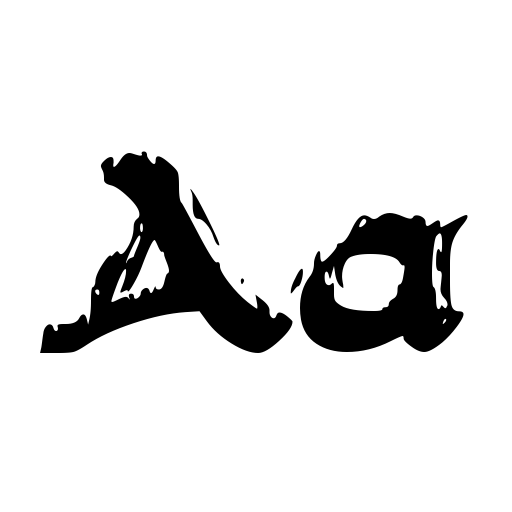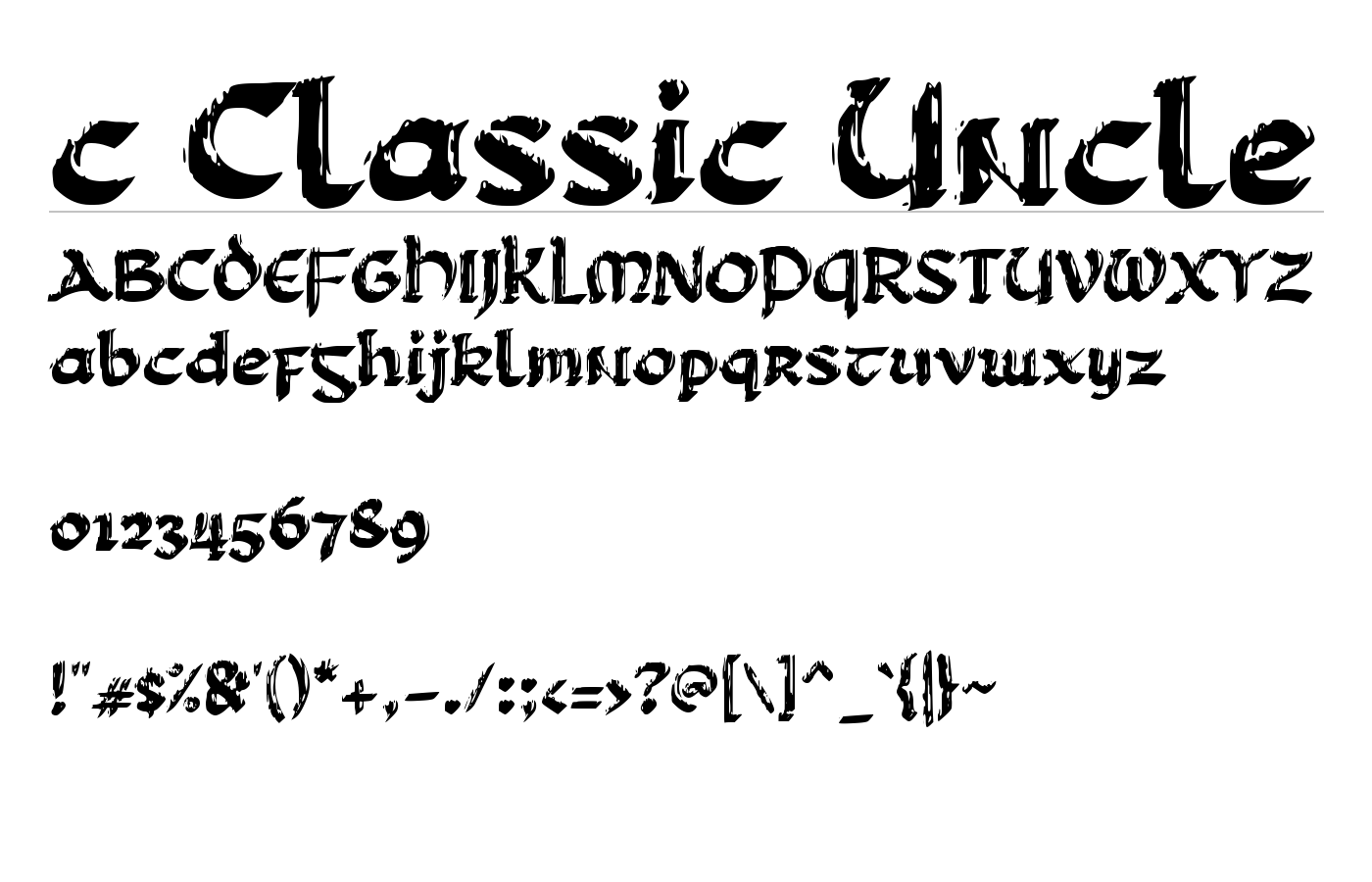
Classic Uncle is a bold, decorative serif font with a rough, hand-crafted texture that gives it a distinctive, expressive character. Its strong strokes and irregular edges evoke a vintage, almost gothic feel, making it ideal for eye-catching headlines, themed posters, or branding that seeks a rugged, artistic flair. This font works best where a unique, bold statement is needed to convey personality and mood.
c Classic Uncle Font
About c Classic Uncle Font